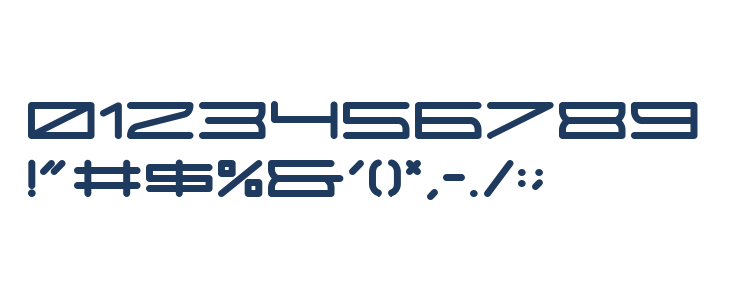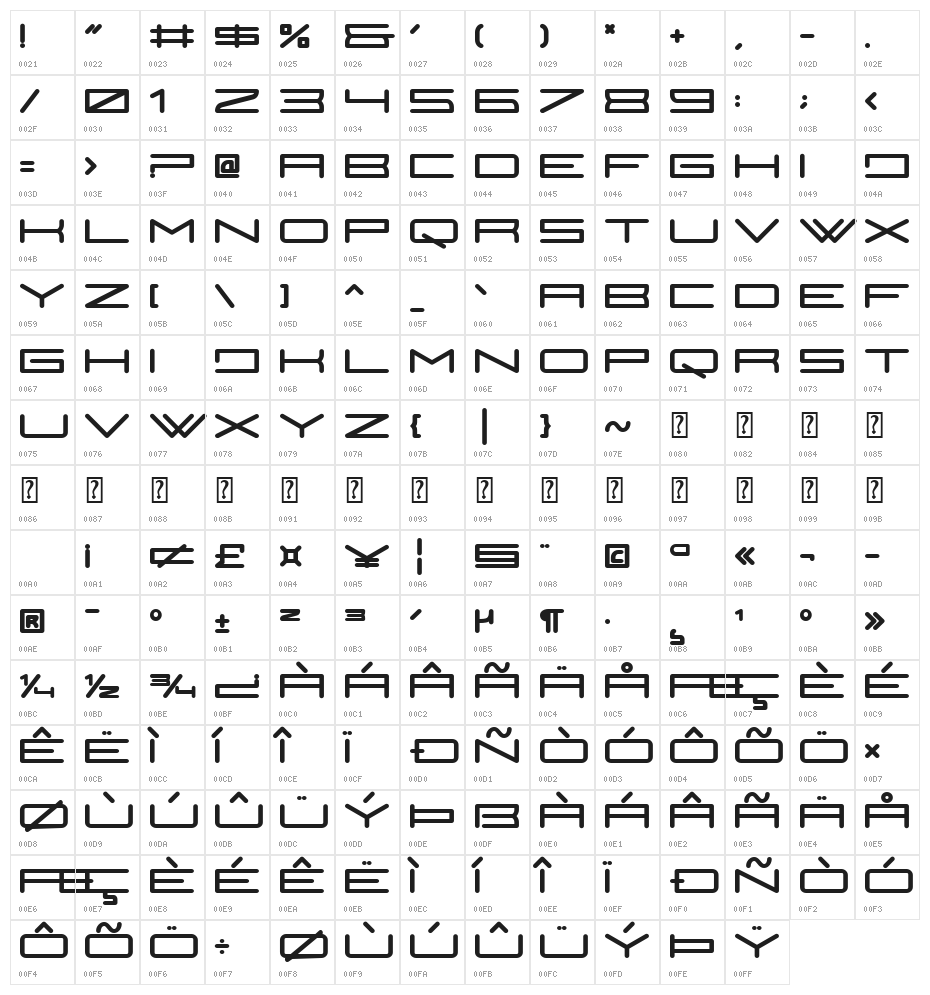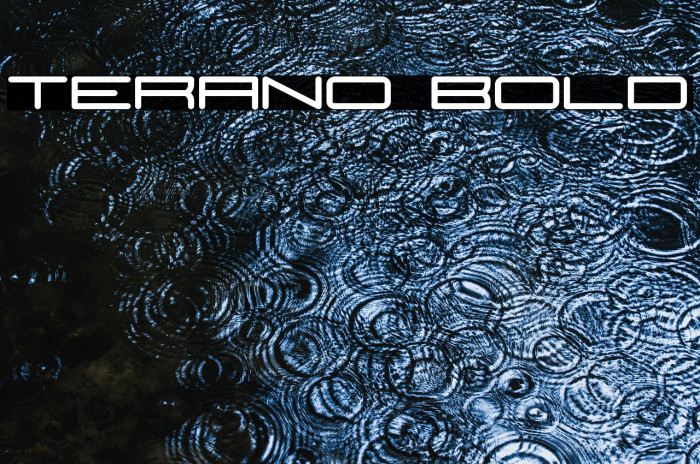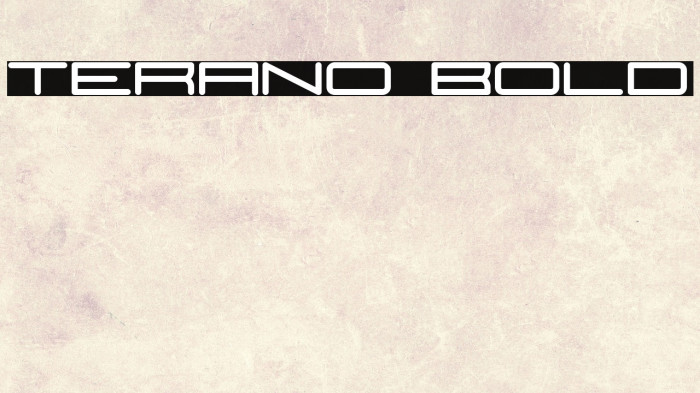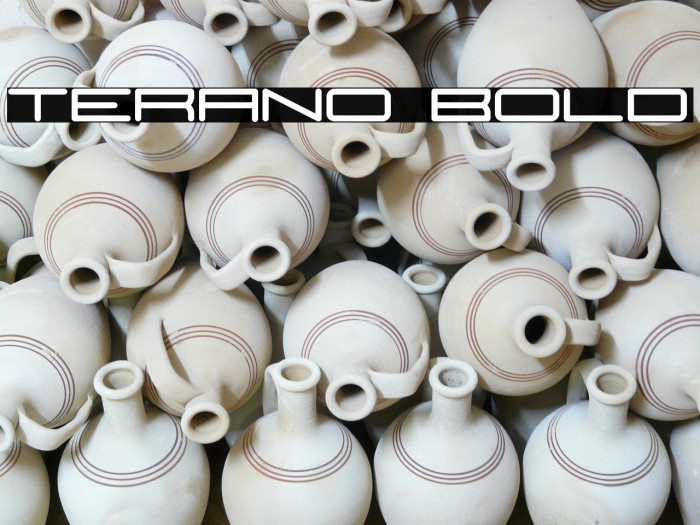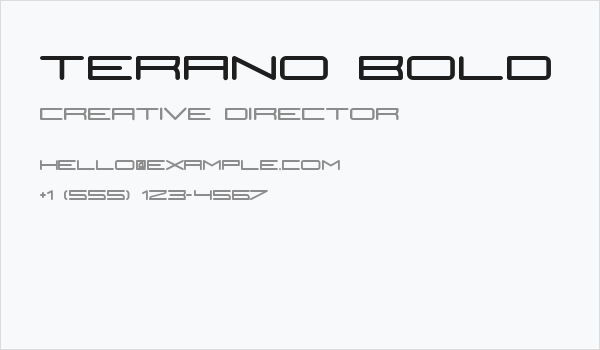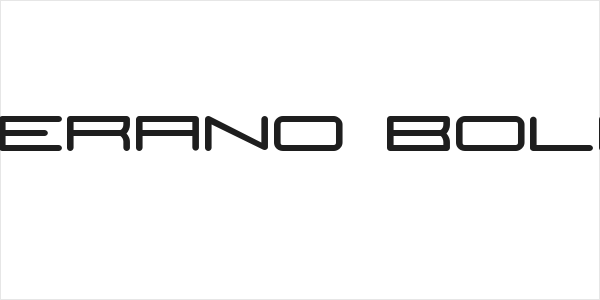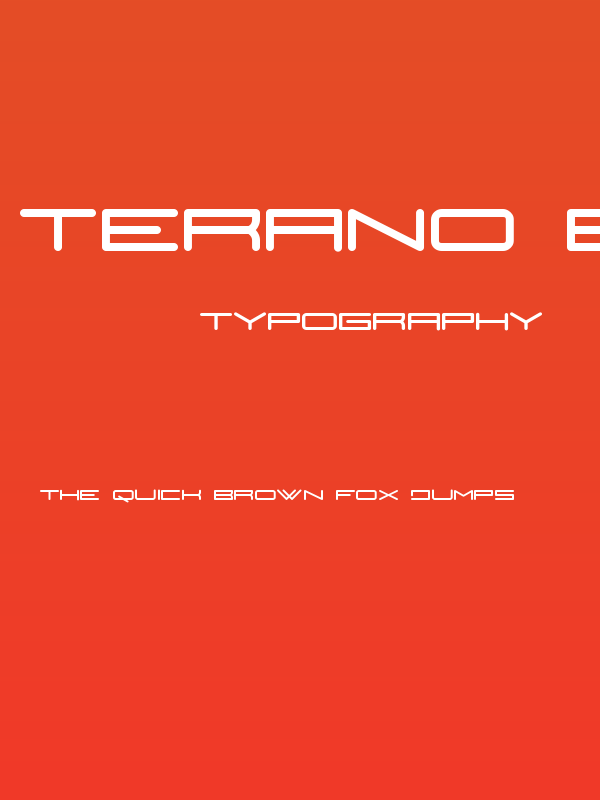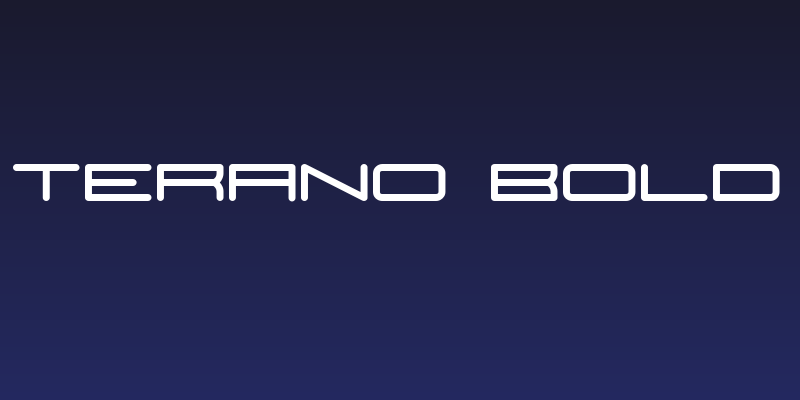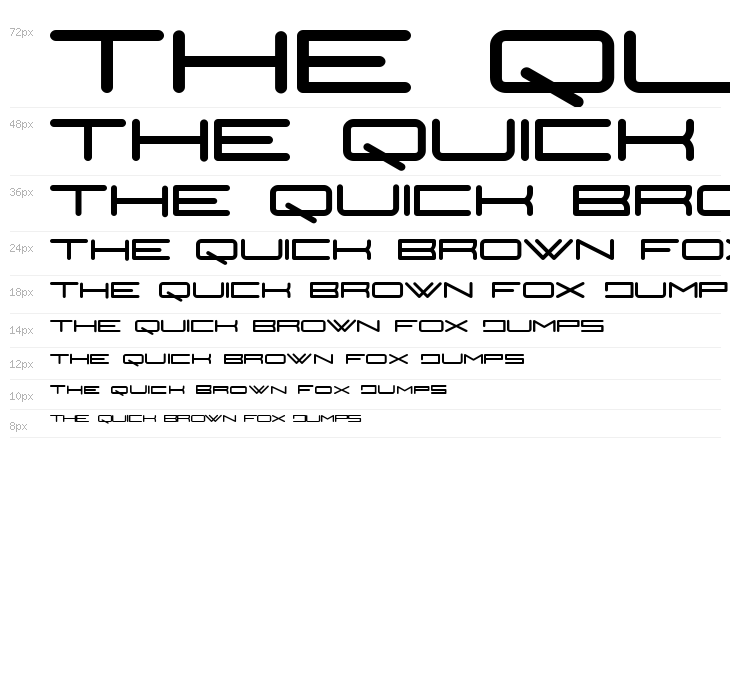
Terano Bold Font
Terano Bold Description
This font features a futuristic and geometric design with a distinctively modern aesthetic. The characters are constructed with clean, straight lines and rounded edges, creating a sleek and streamlined appearance. The uppercase and lowercase letters maintain a consistent height, contributing to a uniform look. The numerals and special characters follow the same design principles, ensuring a cohesive style throughout. The font's unique structure makes it ideal for projects that require a contemporary and tech-inspired feel.
| Use Case | Logos, Headlines, Digital Interfaces |
| Proposed Projects | Ideal for technology branding, sci-fi themed designs, modern logos, and digital interfaces. |